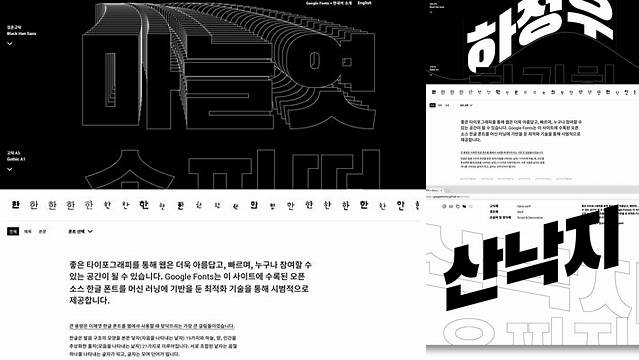
Google Fonts: Korean Font Guide
Hey guys! If you're diving into the world of typography and need some awesome Korean fonts, you've landed in the right spot! This guide is all about Google Fonts and how to find the perfect Korean fonts for your projects. We'll cover everything from understanding the basics of Korean typography to choosing the right fonts for your specific needs. Let's get started!
Understanding Korean Typography Basics
Alright, before we jump into the fonts, let's chat a bit about Korean typography. See, Korean is a bit different from English. We're talking about a writing system called Hangul, which is super logical and cool, but it has its own unique characteristics. First off, Hangul is a featural alphabet, meaning the shapes of the letters give you hints about the sounds. The basic components are consonants and vowels, which are combined into syllable blocks. These blocks are what makes Korean text visually distinct from Latin-based languages like English.
When picking a Korean font, you need to consider a few things, right? First, readability is key. Because of the syllable blocks, some fonts might look squished or hard to read at smaller sizes. You'll want to test your font choice in the context you're planning to use it. Another factor is style. Just like English fonts, Korean fonts come in all sorts of flavors, from the classic, elegant serif fonts, to the modern, clean sans-serif options, and even more playful display fonts. The right style will depend on your project. Are you designing a formal document, a friendly website, or a fun social media post? Then the font style needs to be a match! The third thing to look into is the character set. Make sure the font has all the characters you need! Some fonts might be missing certain characters or stylistic variations. To make sure it meets your needs, test it. And finally, consider legibility. Remember, the way Hangul is arranged—within blocks—affects readability. The font's design influences how easily the characters and blocks are recognized. Make sure that it's not just stylish but also easy to read, so that your audience understands your message without problems.
So there you have it. Getting to know these basics will help you choose a font that not only looks good but also works well in Korean. Getting the basics right will bring you closer to that goal. With these guidelines in mind, you'll be ready to start exploring the world of Google Fonts and finding the perfect Korean fonts for your next project. Let's dive in!
Korean Font Characteristics and Styles
To truly understand Korean typography, let's talk about the key characteristics and styles. Hangul, the Korean alphabet, is made up of 14 consonants and 10 vowels, which combine to form syllabic blocks. Each block is typically made up of at least one consonant and one vowel. The unique arrangement and structure of Hangul require a different approach to font design compared to Latin-based scripts. Fonts are often designed to fit the square or rectangular shape of these blocks. Then, the styles themselves are pretty diverse. Just like English fonts, you'll find a range of styles in Korean typography. Serif fonts, are similar to the classic fonts you know, with small decorative strokes at the ends of the characters. Serif fonts for Korean can add elegance and formality, often used in official documents. Sans-serif fonts, on the other hand, are clean and modern, without the little strokes. These are great for digital interfaces, websites, and anything that needs a contemporary look. Display fonts offer more creative and decorative designs. They're ideal for headlines, posters, and anything that wants to catch the eye. Also, you can see handwriting styles. Some fonts mimic the look of handwritten Korean. They can bring a personal touch and can work well in invitations and creative projects. There's also the consideration of font weight and kerning, to consider the visual harmony of the text and to make sure that it’s readable, which improves the user experience.
The Importance of Readability in Korean Fonts
Alright, listen up, because readability is super important when it comes to Korean fonts! Why? Because even if a font looks cool, if people can't easily read it, then it’s a fail. For Korean, with its unique block structure, readability can be tricky. Some fonts might have characters that are too crowded, causing the blocks to be difficult to decipher at smaller sizes. Think about it: if your text is hard to read, you're going to lose your audience. They won't stick around to read your blog post, they won't understand your website content, and they won't be able to enjoy your social media posts. No one wants that. So when you are selecting a Korean font, make sure it's clear and easy on the eyes. Test it out at different sizes and weights to see how it performs. You'll also want to make sure that the font has good character spacing. This means that there's enough space between each character and each block so that everything doesn't look cramped together. This will greatly improve readability, particularly in longer text. Also, consider the font's overall design. Is the font designed with Korean in mind? Fonts specially designed for Hangul will take into account the unique shapes and structure of the letters, making them more readable than fonts that are simply adapted from other scripts. It's all about making sure your message is easy to digest! Ultimately, the goal is to ensure that your audience can read and understand your content without any difficulty. Choose fonts that are designed with readability in mind, test them thoroughly, and make sure they fit your project's needs.
Finding Korean Fonts on Google Fonts
Okay, let's get down to the good stuff: finding Korean fonts on Google Fonts. The platform makes it pretty straightforward, but you might need a little guidance to find what you're looking for. First off, head over to the Google Fonts website, which you can find by searching for